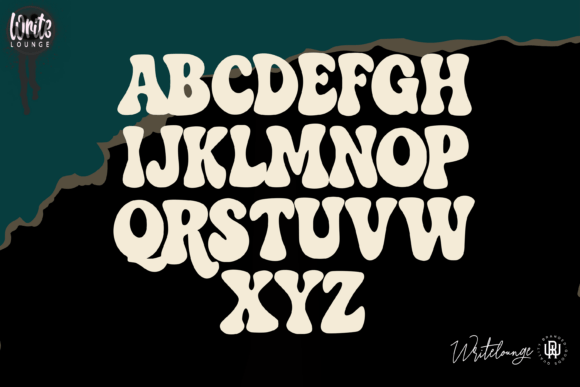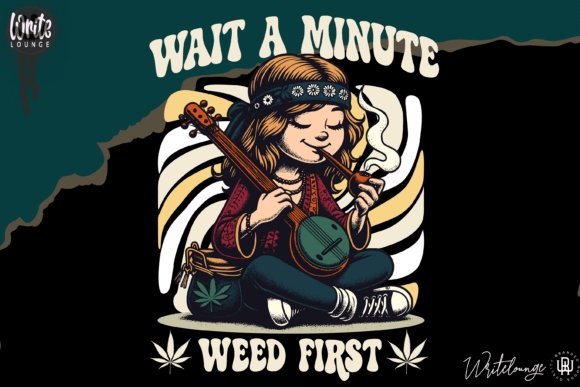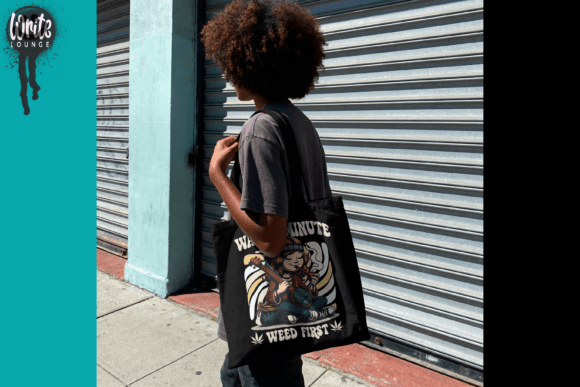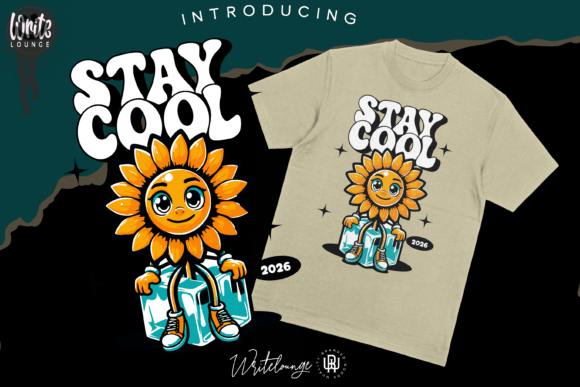
Groove Move Font: The Ultimate Retro Display Font for Creative Projects
Are you looking for a font that embodies the fun, playful, and carefree spirit of the 1970s? Look no further than Groove Move, a bold, rounded display font that’s perfect for creative projects that need a retro, vintage vibe. With its smooth curves, bubbly letterforms, and balanced shapes, Groove Move is the ideal choice for designers and crafters who want to add a touch of nostalgia to their work.
The Groovy Characteristics of Groove Move
Groove Move is a font that’s deeply rooted in the 1970s, with a groovy, hippi-inspired aesthetic that’s sure to transport you back to a bygone era. Its soft curves and rounded letterforms create a friendly and confident look that’s instantly recognizable, while its playful flow and bubbly personality make it perfect for headlines and visual designs that need to stand out.
One of the key characteristics of Groove Move is its bold, eye-catching style. This font is designed to make a statement, with thick, chunky lines and a robust presence that’s sure to grab attention. Whether you’re designing a poster, a social media graphic, or a merchandise item, Groove Move is the perfect choice for projects that need a fun, relaxed, and eye-catching style.
Groove Move is a versatile font that’s perfect for a wide range of creative projects. Its modern retro vibe makes it ideal for:
- Posters and flyers: Add a touch of nostalgia to your posters and flyers with Groove Move’s bold, eye-catching style.
- Branding and logos: Create a memorable brand identity with Groove Move’s unique, groovy aesthetic.
- Merch designs: Add a fun, playful touch to your merchandise items, such as t-shirts, stickers, and tote bags.
- Social media graphics: Stand out on social media with Groove Move’s bold, attention-grabbing style.
- Packaging: Add a touch of personality to your packaging with Groove Move’s warm, friendly aesthetic.
Why Choose Groove Move?
So why choose Groove Move over other fonts? Here are just a few reasons why this font stands out:
- Unique aesthetic: Groove Move’s groovy, retro vibe is unlike any other font on the market.
- Versatile: This font is perfect for a wide range of creative projects, from posters and branding to merch designs and social media graphics.
- Easy to read: Despite its bold, chunky style, Groove Move is surprisingly easy to read, even at smaller sizes.
- Modern and retro: This font combines the best of both worlds, with a modern, fresh feel that’s rooted in retro nostalgia.
Tips for Using Groove Move
Here are a few tips for getting the most out of Groove Move:
- Use it boldly: Groove Move is a font that’s designed to make a statement, so don’t be afraid to use it boldly and prominently.
- Experiment with colors: This font looks great in a wide range of colors, from bright and bold to pastel and soft.
- Pair it with other fonts: Groove Move works beautifully with other fonts, especially those with a more minimalist or modern aesthetic.